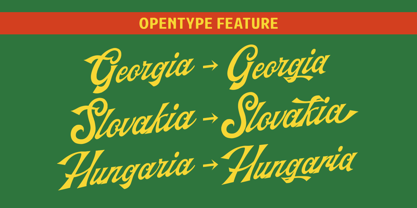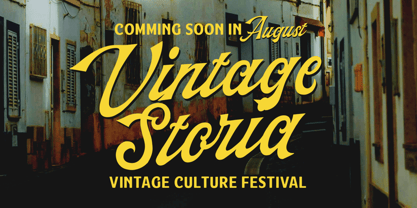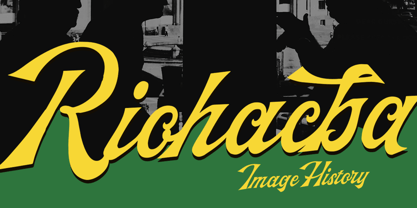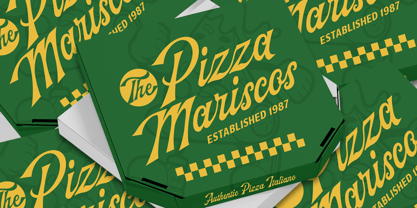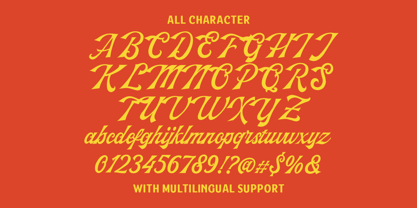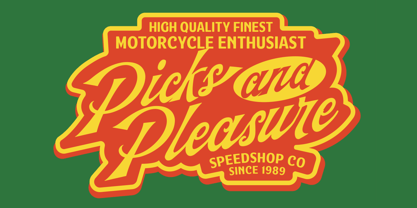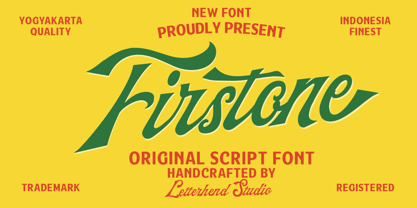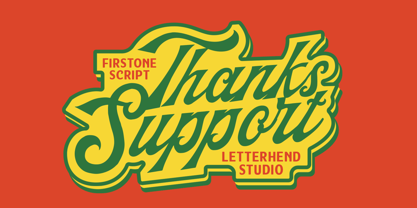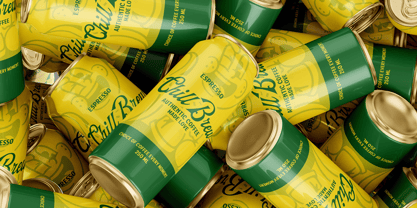
Firstone
by Letterhend
The Firstone Font Family was designed by Hendry Juanda and published by Letterhend. Firstone contains 1 styles. More about this family
Firstone is a bold and lively original script font with a handcrafted feel, perfect for projects that need energy, character, and a touch of vintage charm. Its smooth curves and confident strokes draw inspiration from classic sign painting, making it ideal for logos, retro packaging, posters, signage, and headlines.